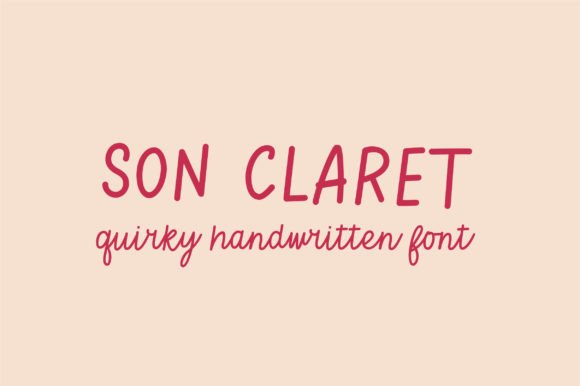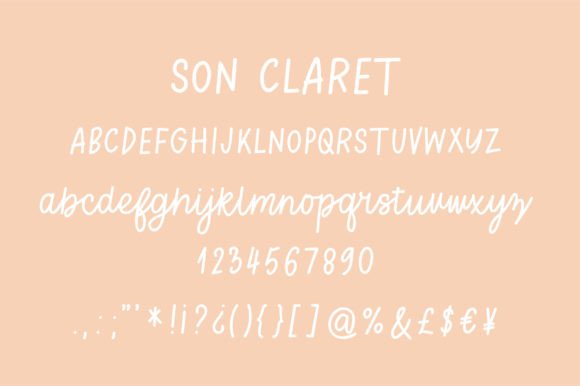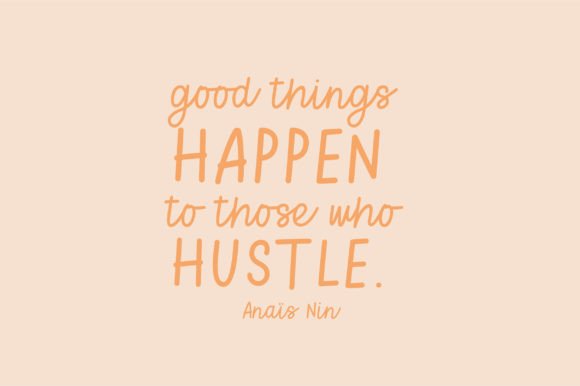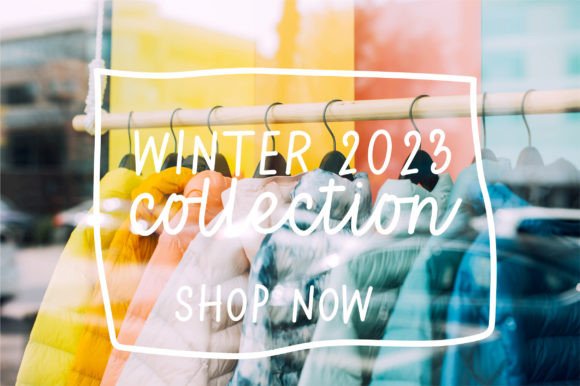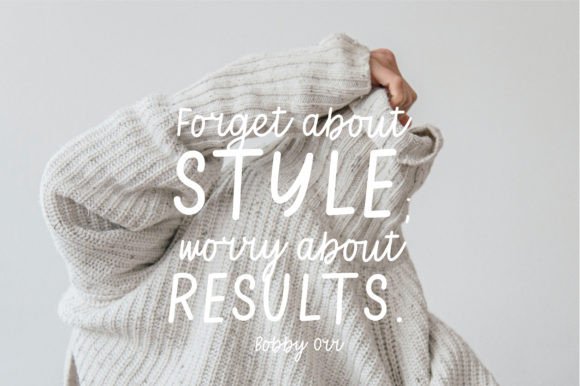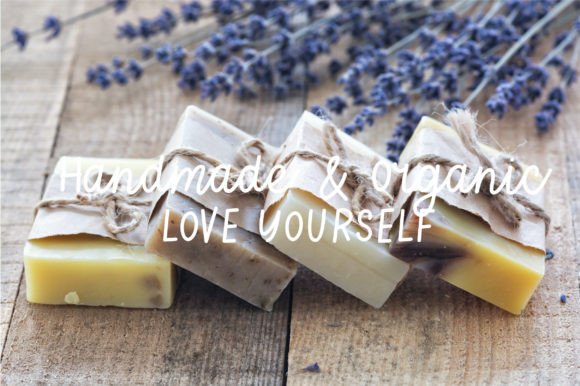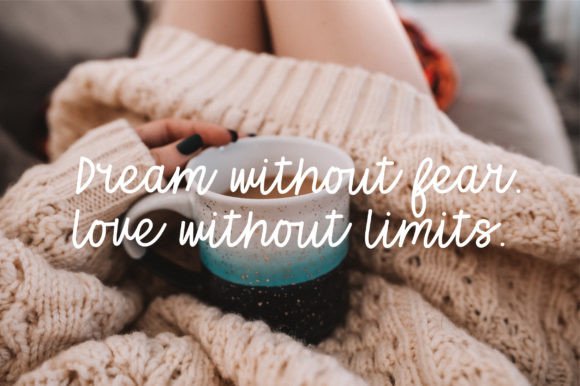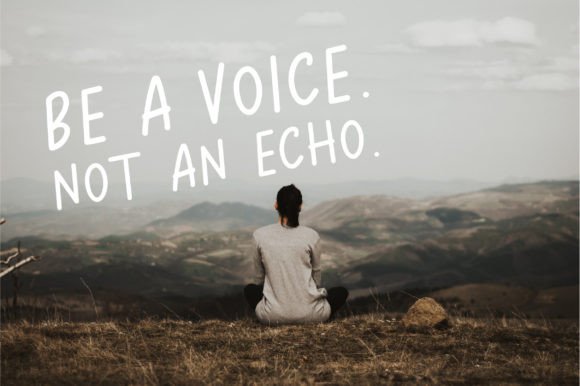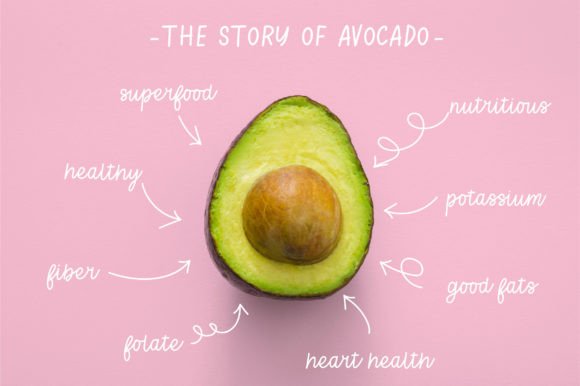
Son Claret Font
About Son Claret Font
**Son Claret – Modern Monoline Script Font for Creative Projects**
Son Claret is a contemporary and clean monoline script font that brings a touch of modern elegance to your creative endeavors. Here’s why Son Claret is an excellent choice for various design projects:
1. **Sleek Simplicity:** Son Claret features a sleek and simple monoline design, making it versatile and suitable for a wide range of applications.
2. **Timeless Appeal:** The font’s clean lines and timeless aesthetic ensure that it can be used for both contemporary and classic design projects.
3. **Instagram-Ready:** Son Claret is perfect for Instagram posts, stories, and highlights, adding a touch of sophistication to your social media content.
4. **DIY Projects:** Whether you’re crafting invitations, greeting cards, or home decor items, Son Claret will turn your DIY projects into works of art.
5. **Quirky Charm:** While it exudes modernity, Son Claret also possesses a hint of quirky charm, making it suitable for projects that need a touch of whimsy.
6. **Romantic Vibes:** The font’s elegant curves and monoline style lend a romantic flair to wedding invitations, love letters, and other romantic-themed designs.
7. **Versatile Applications:** Son Claret is suitable for logos, branding materials, posters, packaging, stationery, labels, and more.
8. **Clean and Readable:** Its clean and readable letterforms ensure that your messages and branding remain clear and impactful.
9. **Unique and Memorable:** Stand out from the crowd with a unique and memorable typeface that captures attention and leaves a lasting impression.
10. **Artistic Expression:** Use Son Claret to transform your creative ideas into genuine pieces of art, adding a touch of sophistication to your projects.
11. **User-Friendly:** The font is user-friendly and easy to work with, making it accessible to both professional designers and hobbyists.
12. **Professional Presentation:** Elevate your presentations, documents, and reports with Son Claret’s professional and polished appearance.
13. **Modern Branding:** Create modern and stylish branding materials that reflect the contemporary essence of your business or project.
14. **Elegant Personalization:** Add an elegant touch to personal items such as monograms, custom gifts, and personal stationery.
Son Claret strikes a balance between modernity and elegance, making it an excellent choice for designers and creators seeking a versatile and attractive font for their projects. Whether you’re designing for digital platforms or crafting physical materials, Son Claret’s monoline script will effortlessly elevate your work, adding a touch of sophistication and creativity. It’s a font that allows you to express yourself artistically while maintaining a clean and professional appearance, making it a valuable asset for any design collection.